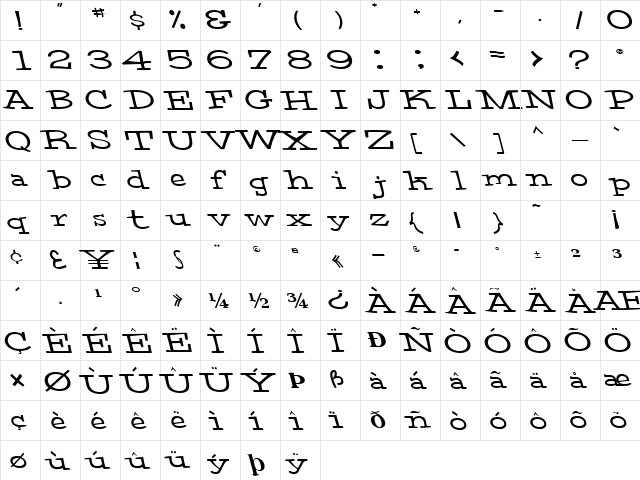
CelticBreezeLight80 Regular Font Preview
CelticBreezeLight80 Regular
Design Context for CelticBreezeLight80 Typeface
CelticBreezeLight80 is a composed and adaptable typeface that performs quietly and consistently across a wide range of design contexts. The delicate stroke weight brings airiness and refinement to layouts.